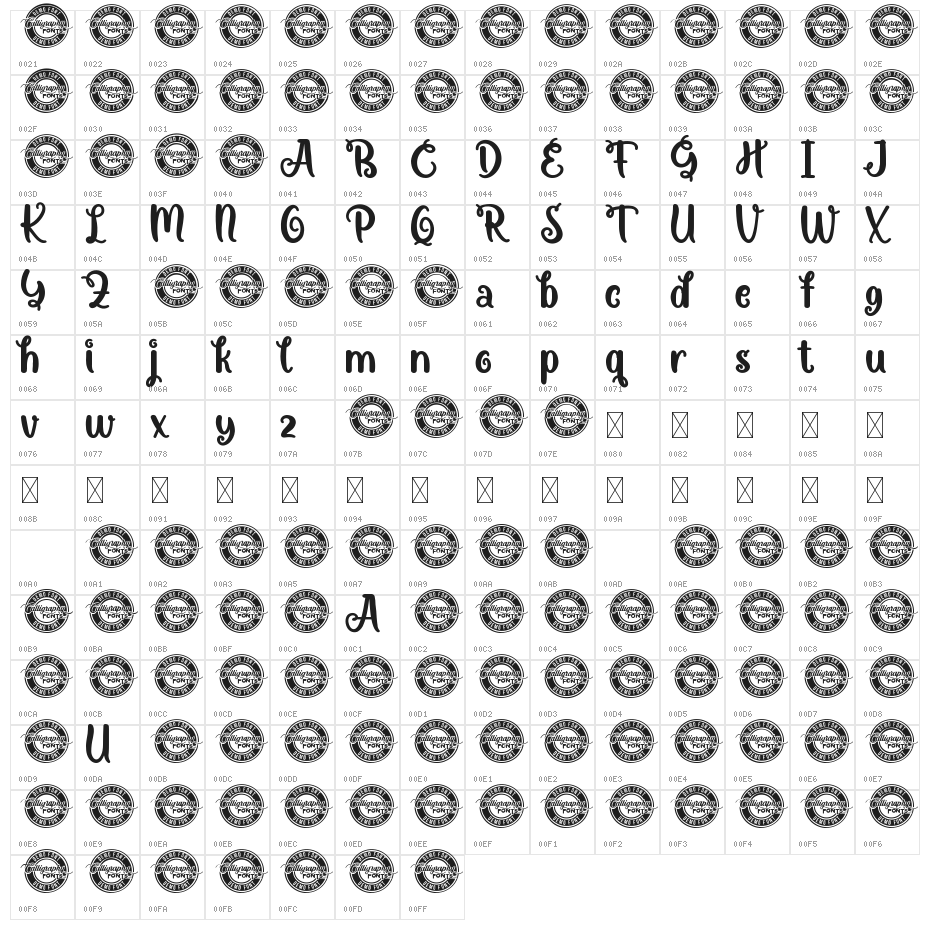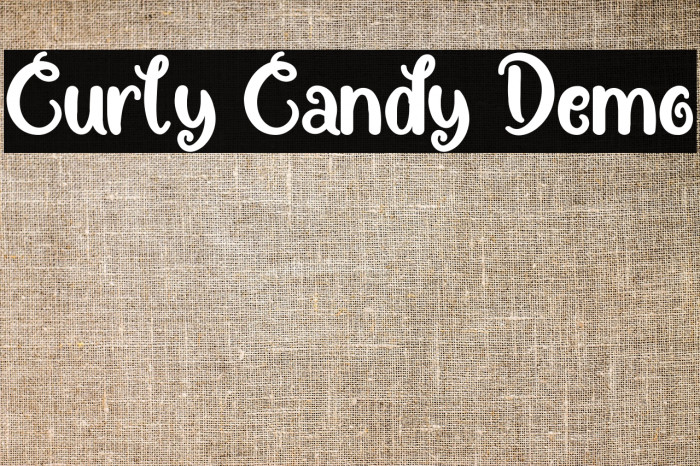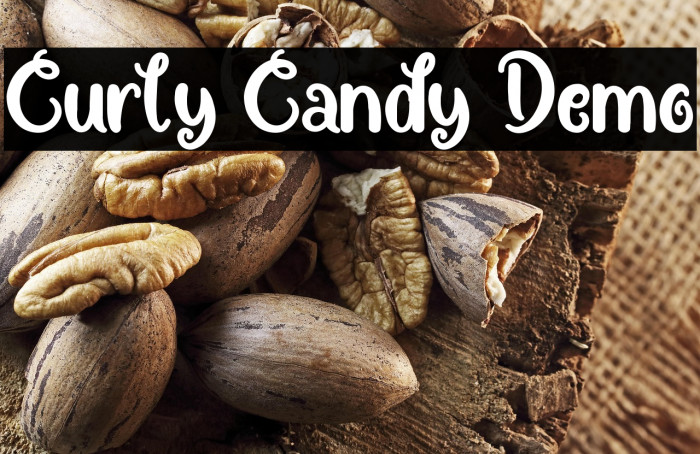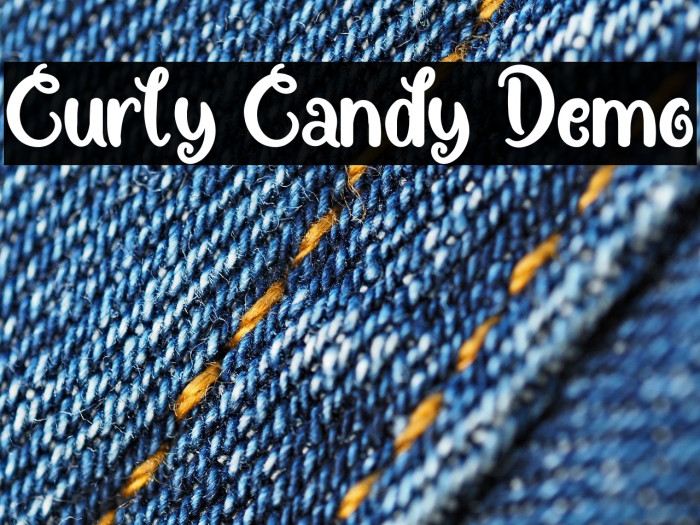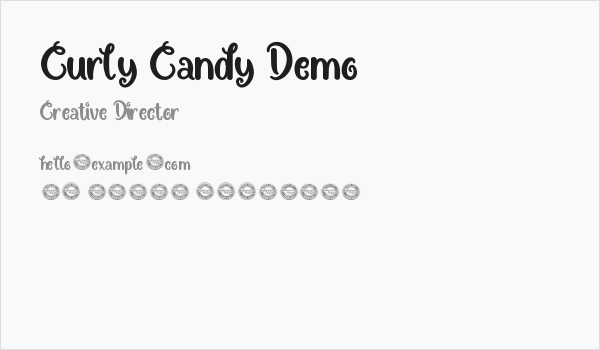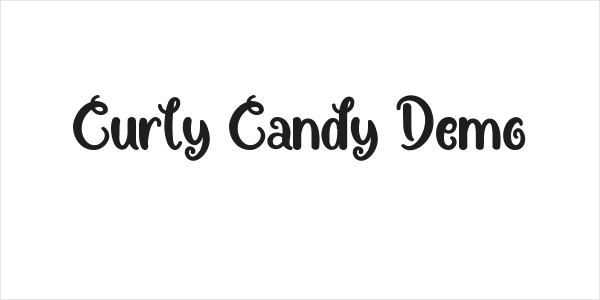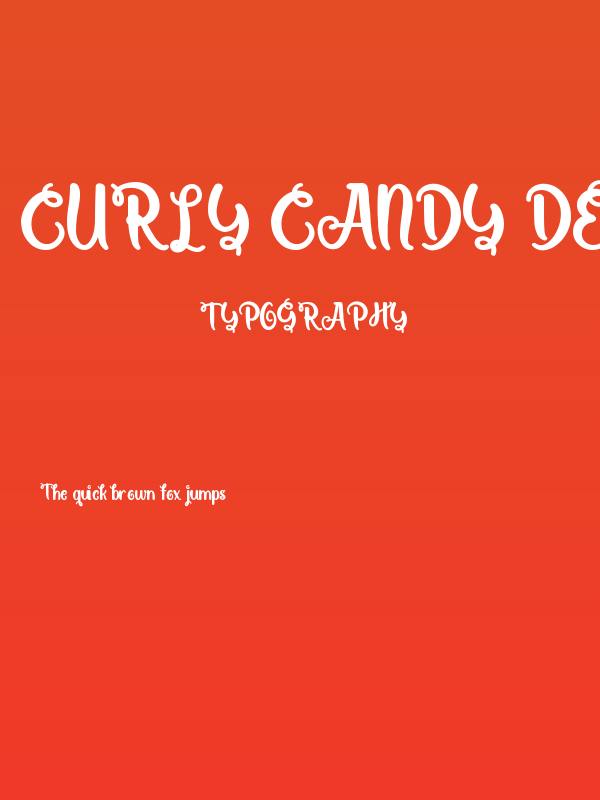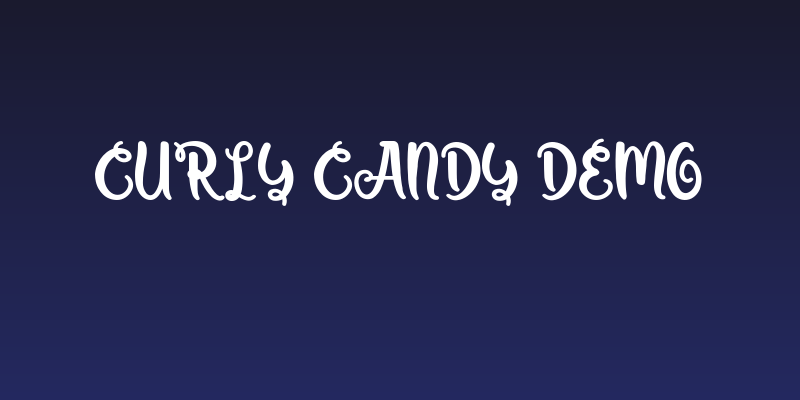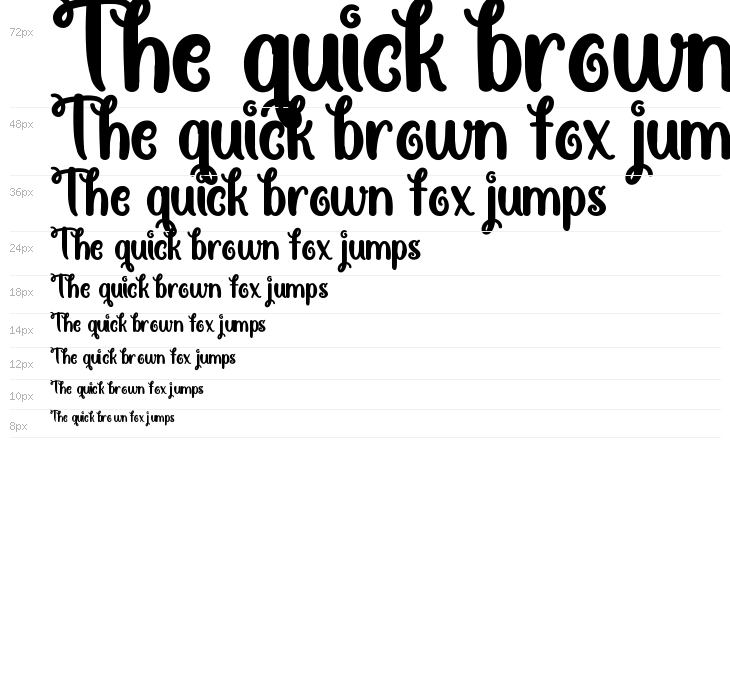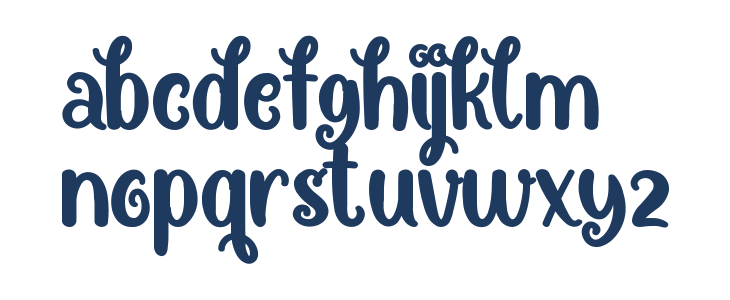
Curly Candy Demo Font
Curly Candy Demo Description
This font features a whimsical and playful design with curly, decorative elements that give it a unique and fun appearance. The uppercase letters are bold and prominent, with intricate curls and loops that add a touch of elegance and creativity. The lowercase letters maintain the playful style, with smooth curves and rounded edges that enhance readability while retaining a distinctive flair. Numbers and special characters are designed to match the overall aesthetic, making them suitable for a variety of creative projects. The font's bold weight and decorative style make it ideal for eye-catching designs.